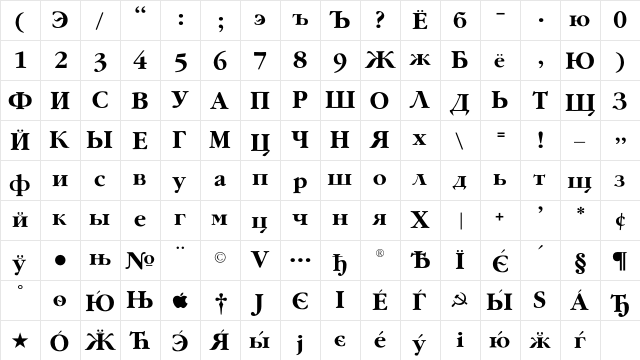
GaramondFLFCyrillic-Bold Regular
Design Context for GaramondFLFCyrillic-Bold Typeface
GaramondFLFCyrillic-Bold offers clean, dependable letterforms without strong stylistic allegiance, making it a practical choice for designers who need flexibility. The heavy weight commands attention and anchors typographic hierarchies.